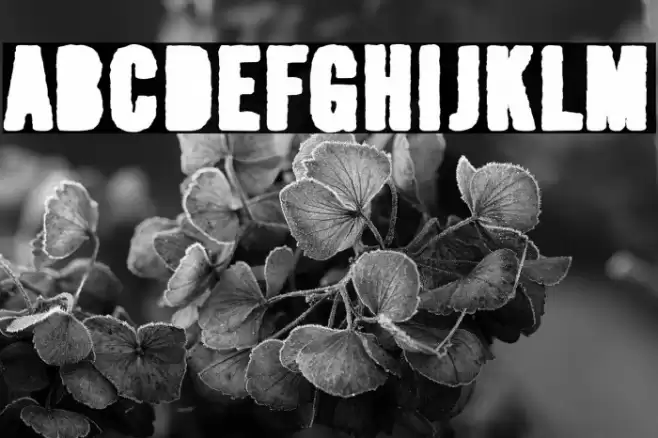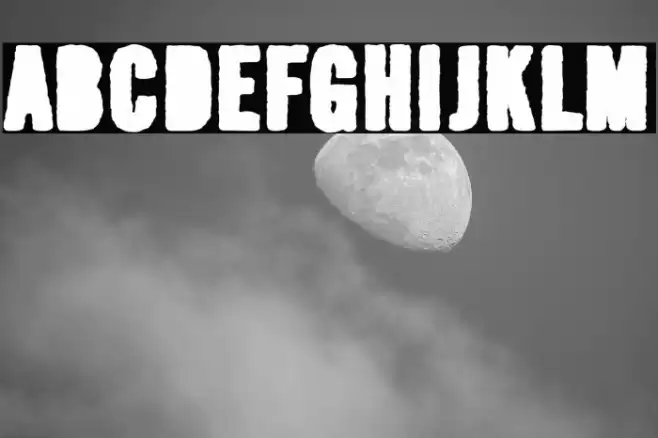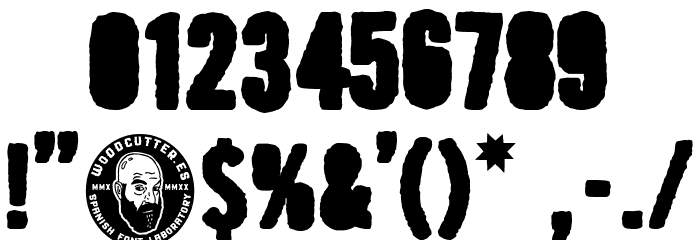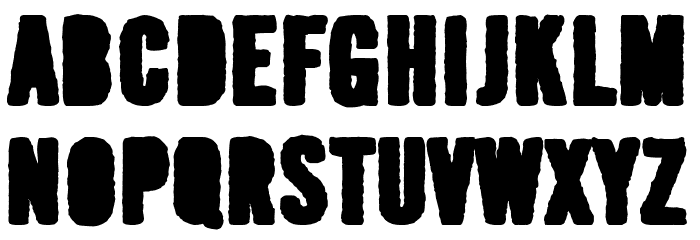
Pintan Bastos Font
Pintan Bastos Description
This bold, decorative font features a rugged, hand-crafted appearance with thick, uneven strokes that give it a distinctive, organic feel. The characters are heavily weighted, creating a strong visual impact, while the irregular edges add a touch of authenticity and rawness. The font's style is reminiscent of vintage woodcut prints, making it ideal for projects that require a rustic or artisanal aesthetic. Its boldness ensures high readability, even from a distance, making it suitable for attention-grabbing headlines or signage.
A bold, rugged, and decorative font with a vintage woodcut style from Uncategorized fonts.
- Font: Pintan Bastos
- Proposed Projects: Ideal for posters, signage, branding, packaging, and any project seeking a rustic or artisanal touch.
- Overall Style: Vintage